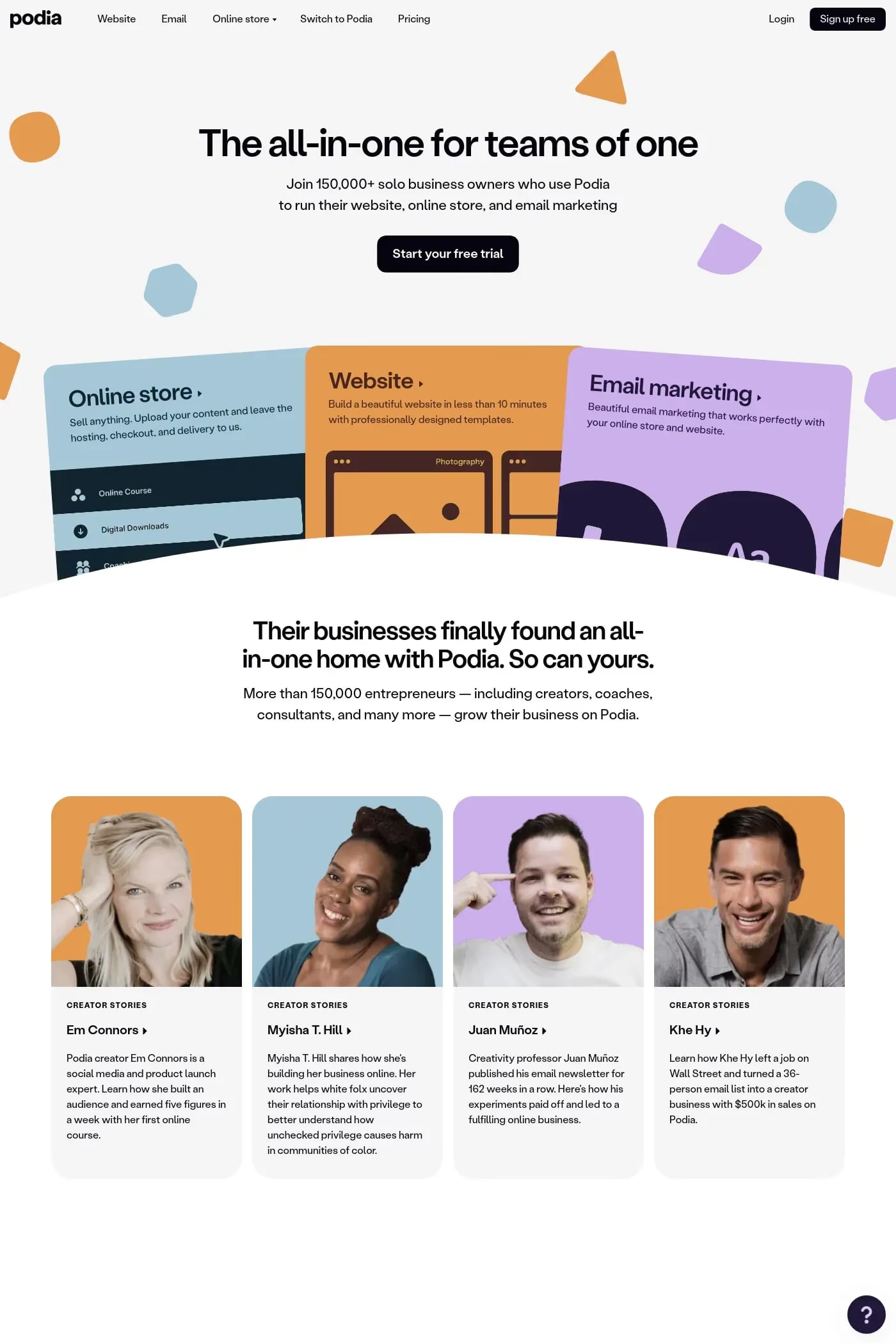
Stabil Grotesk is a sans-serif typeface from KOMETA.
Contemporary neo-grotesque with whimsical undertones; redefining the balance between sterile and gaudy.